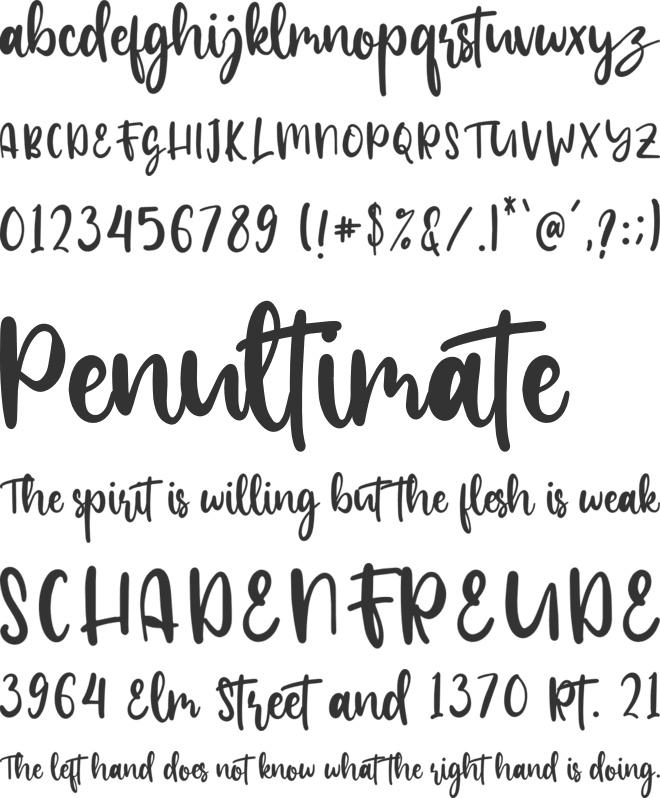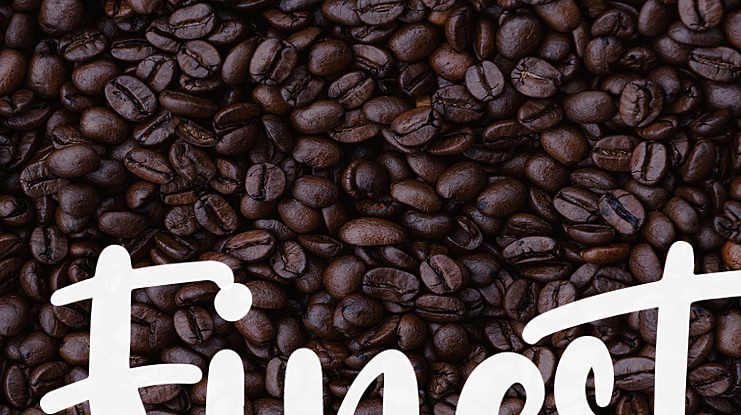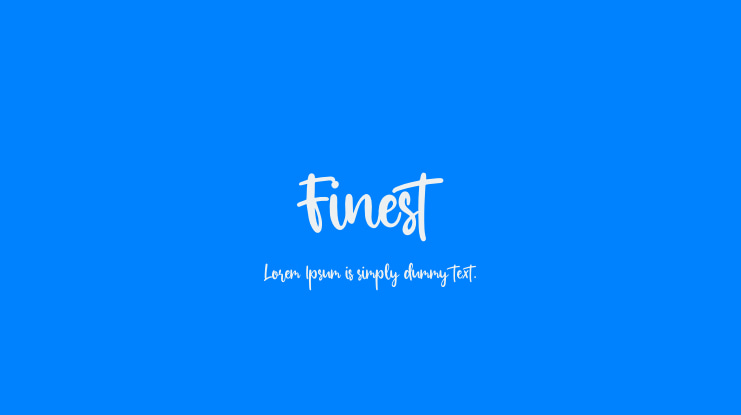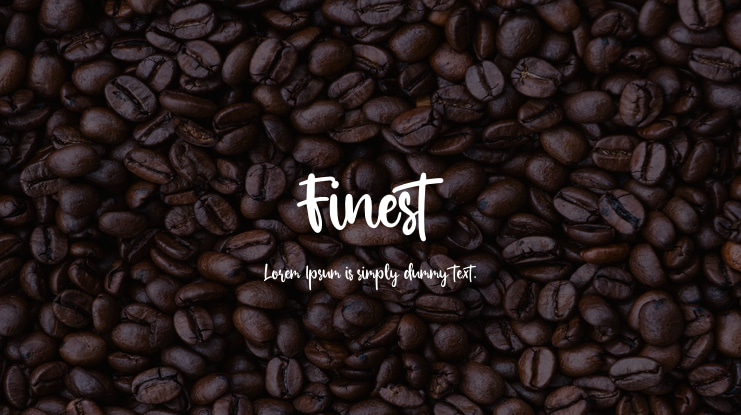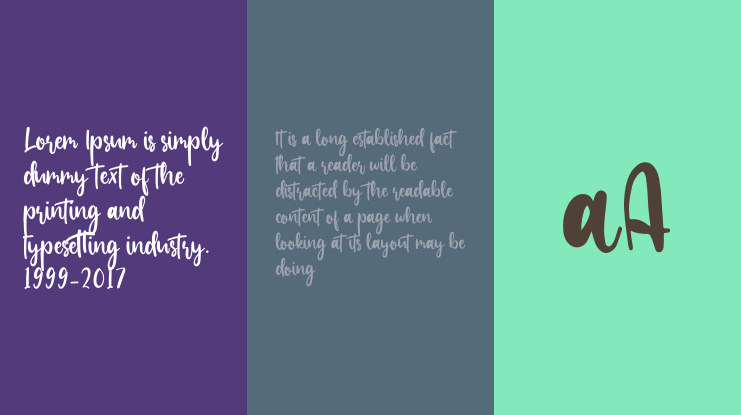
Laire Banyu Sandi Pawenang
Finest is a elegant handwritten font. The handwritten combined with Tail/swash font will make your design project more beautiful. Made for any professional project branding. It is the best for logos, branding and quotes.